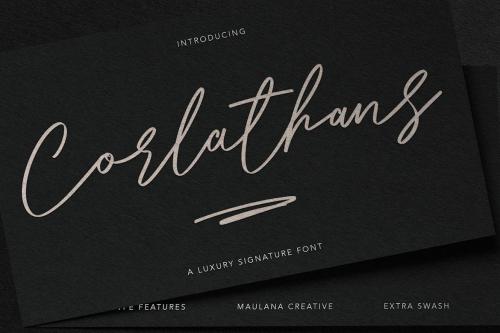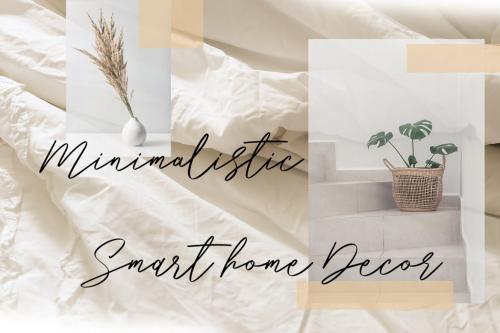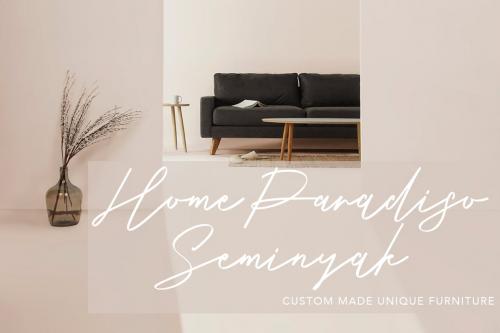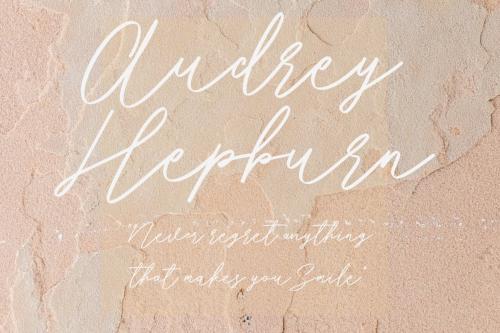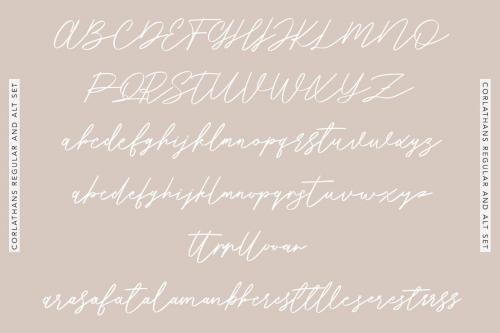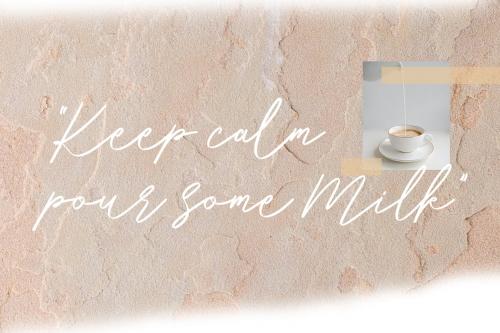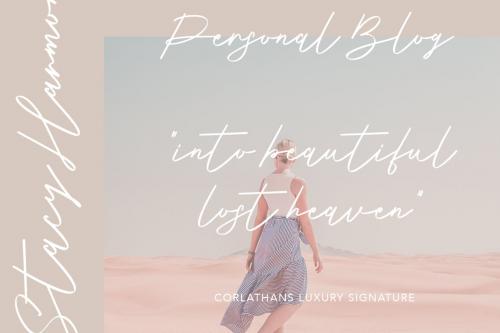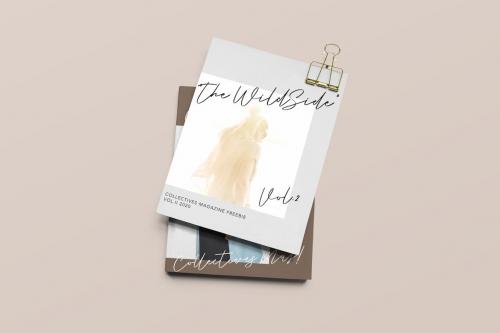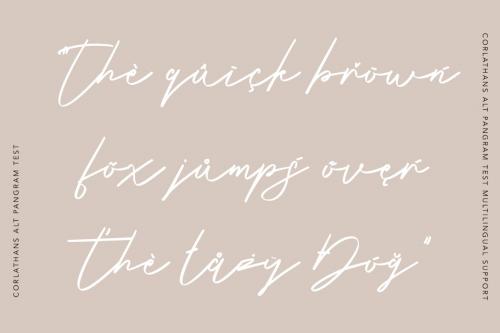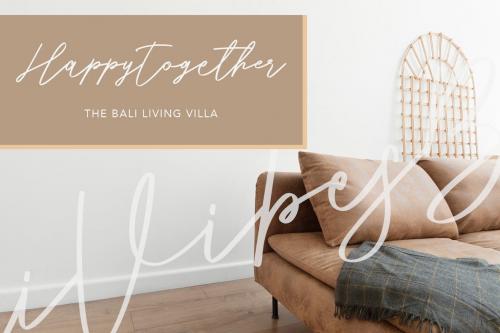
科尔拉汉斯奢华签名字体
Corlathans Luxury Signature Font
Give your designs an authentic handcrafted feel. "Corlathans Luxury Signature Font" is perfectly suited to signature, stationery, logo, typography quotes, magazine or book cover, website header, clothing, branding, packaging design and more.